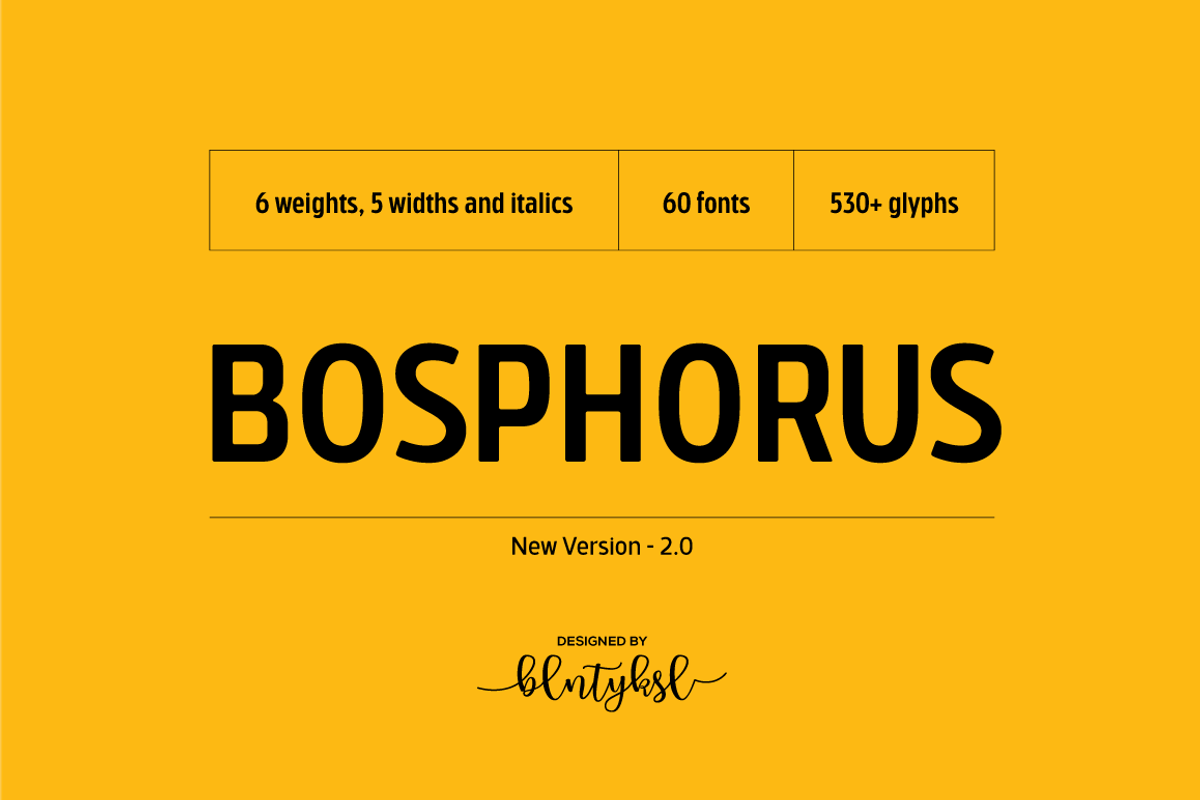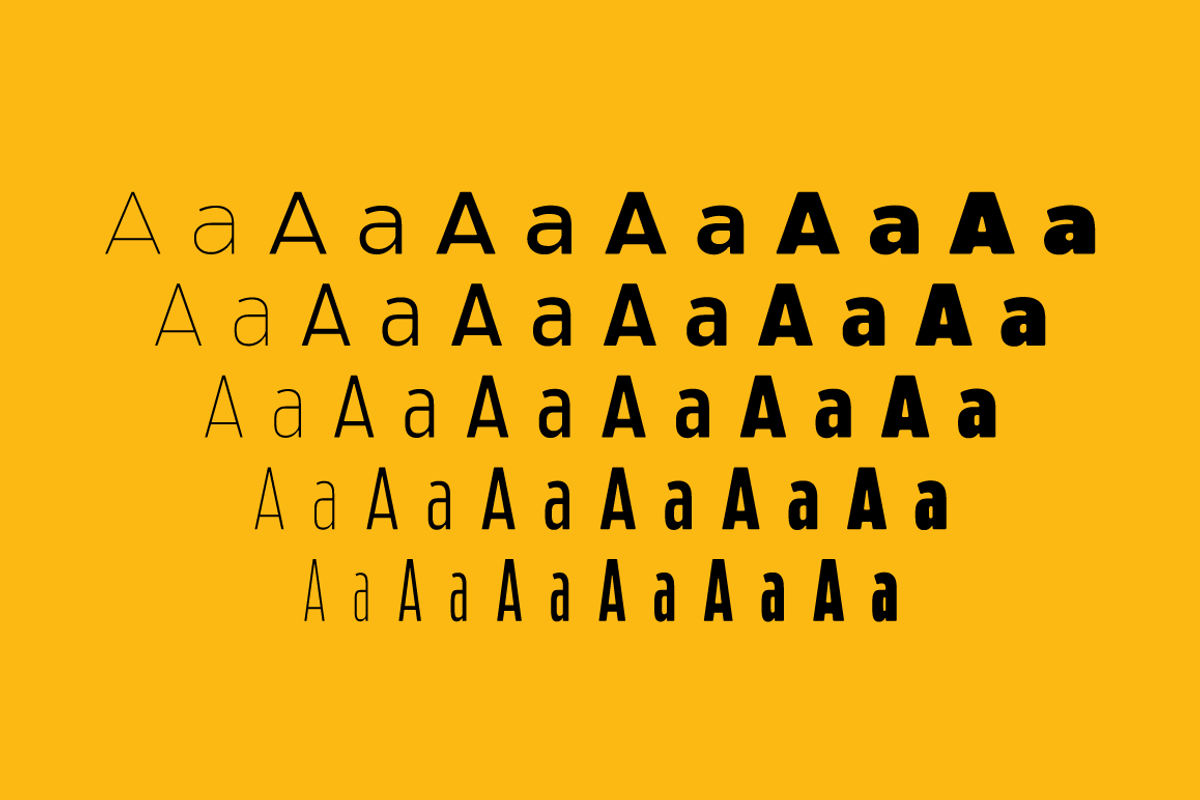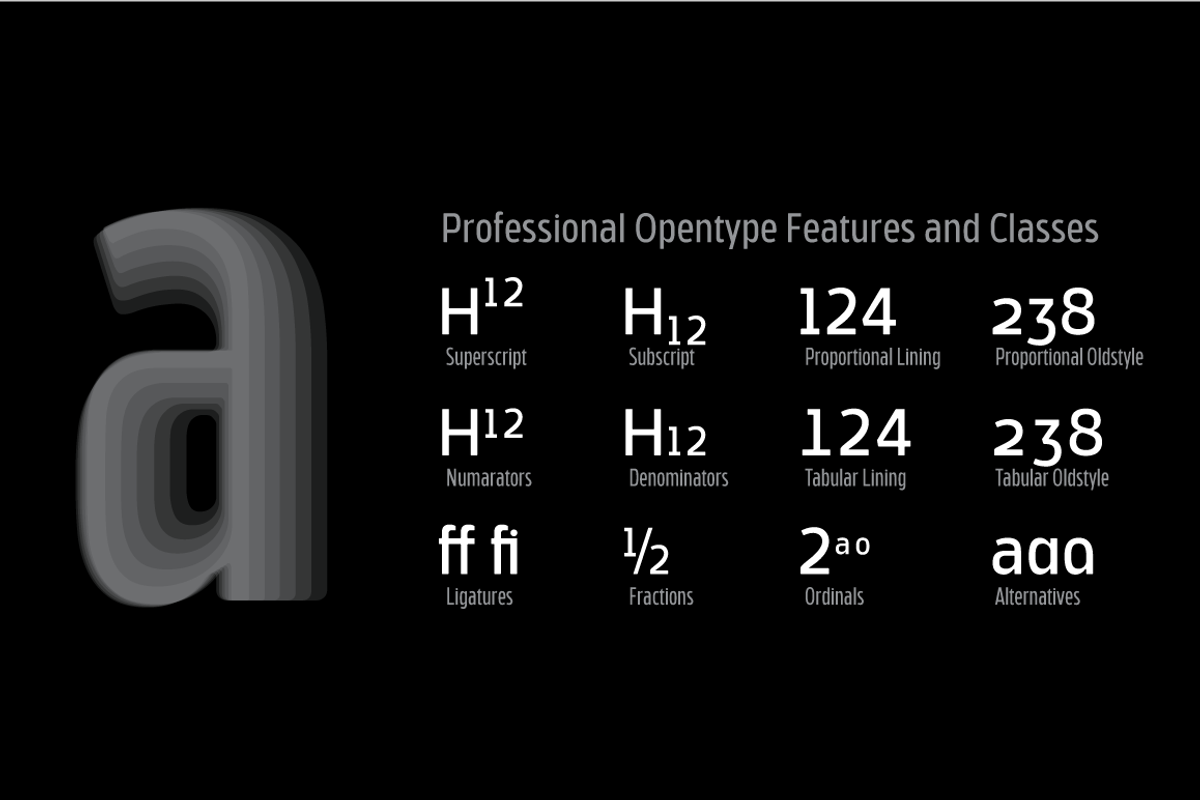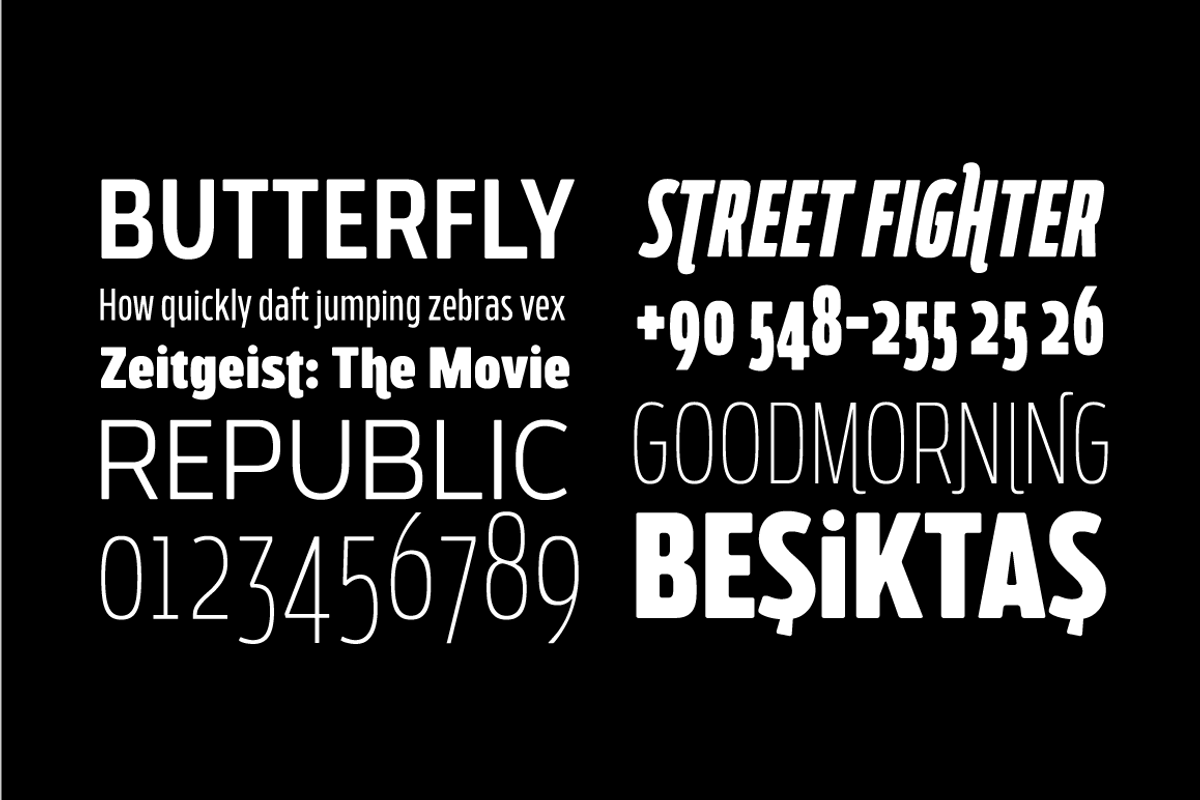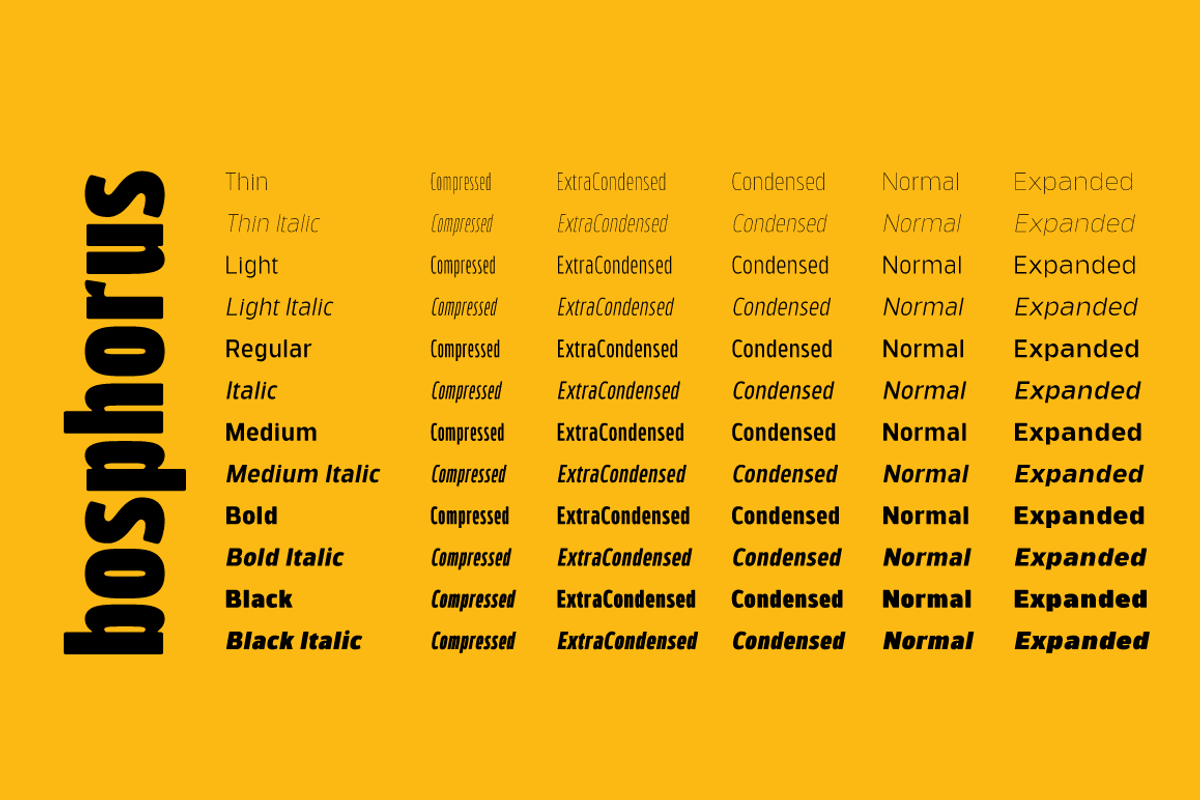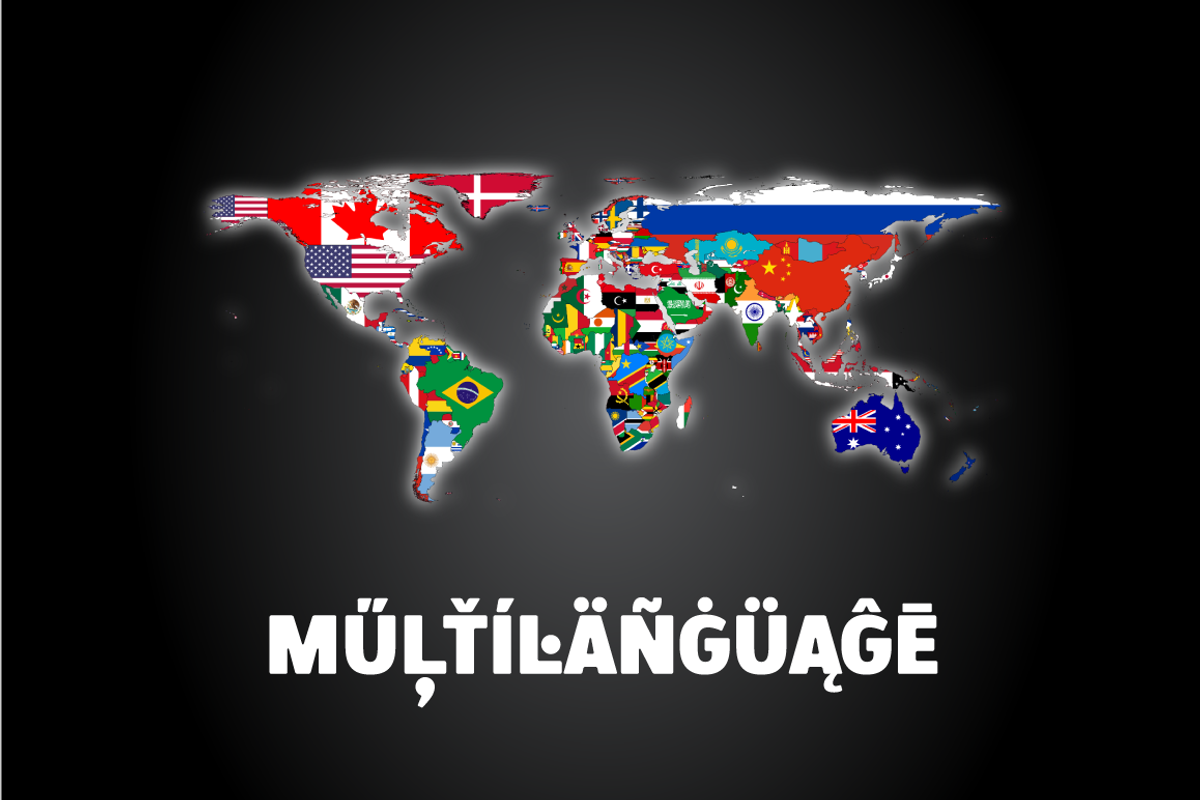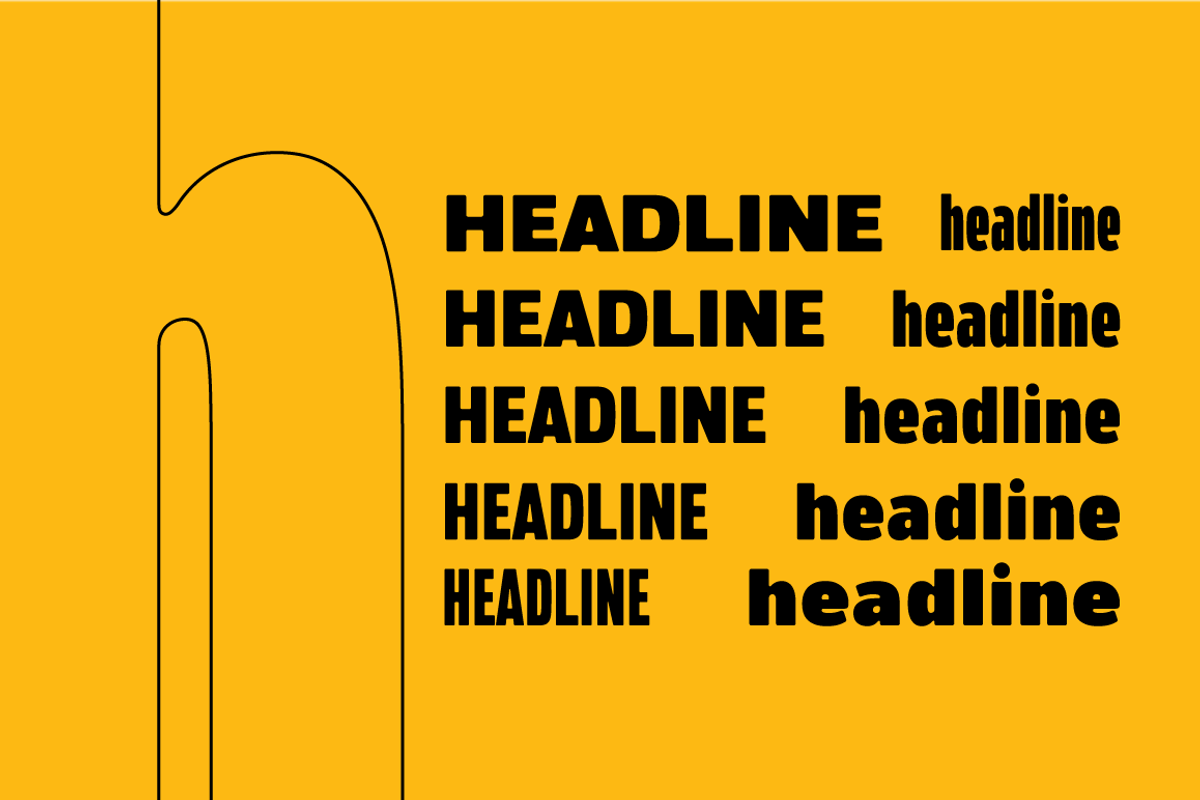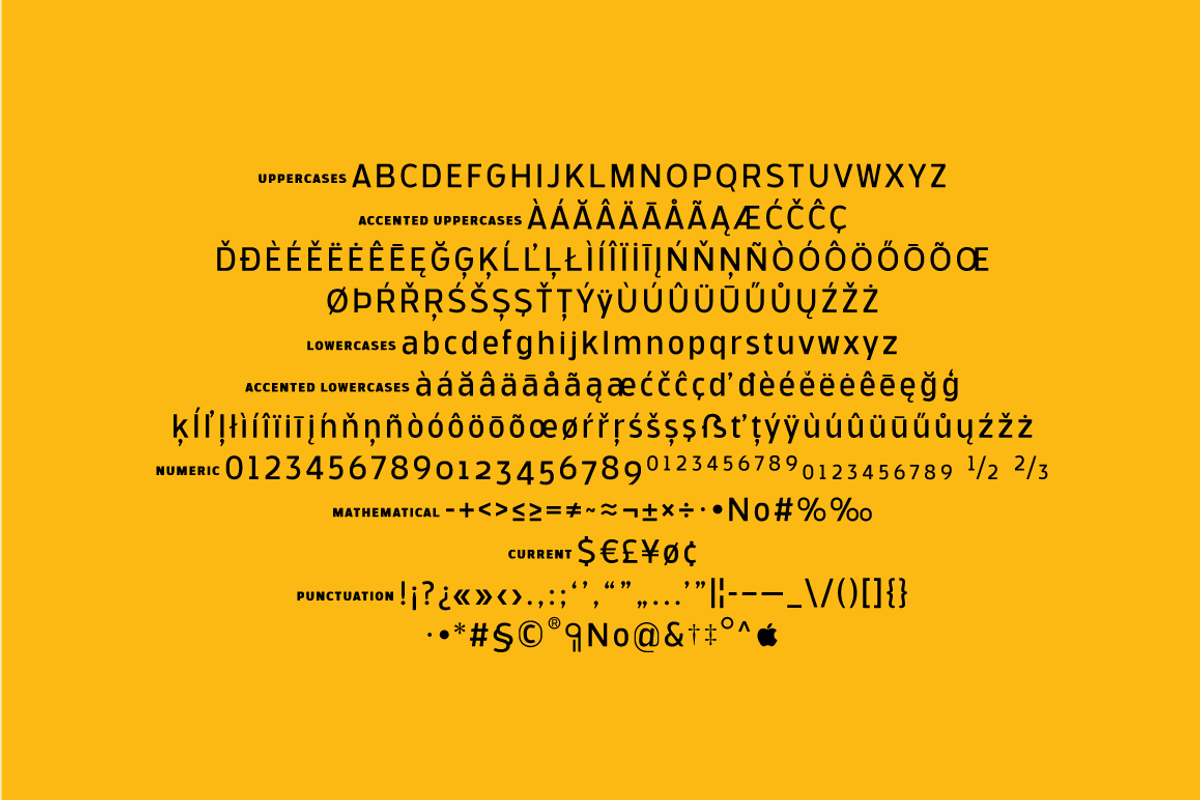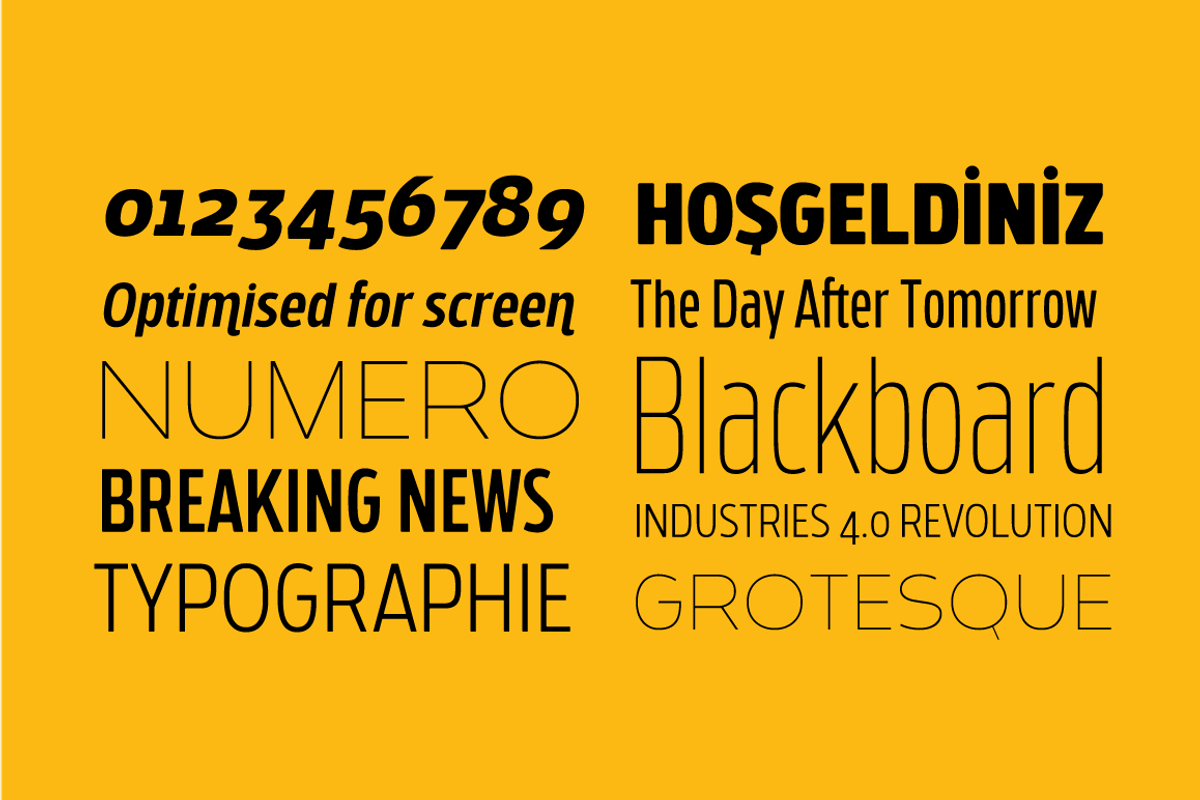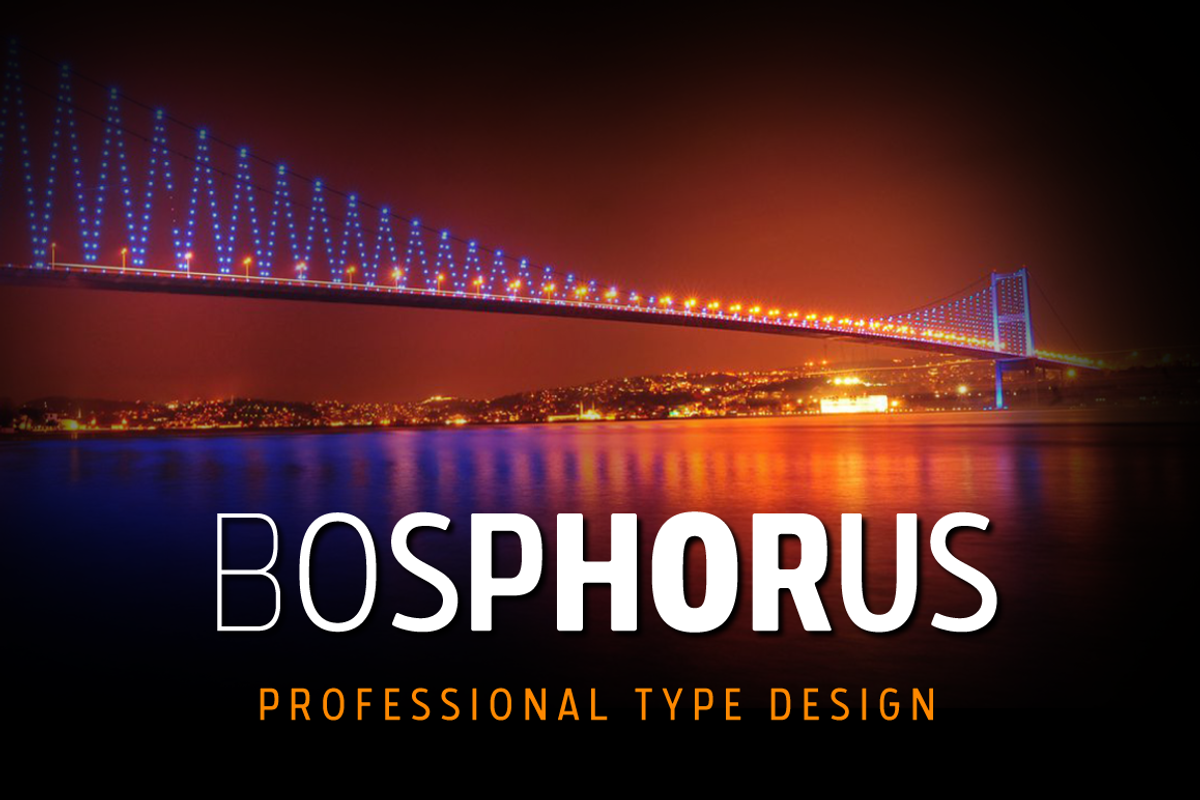
BOSPHORUS
The Bosphorus Turkish: İstanbul Boğazı, is a narrow, natural strait and an internationally significant waterway located in northwestern Turkey. It forms part of the continental boundary between Europe and Asia, and separates Asian Turkey from European Turkey. The world’s narrowest strait used for international navigation, the Bosporus connects the Black Sea with the Sea of Marmara, and, by extension via the Dardanelles, the Aegean and Mediterranean Seas.
There is not much to say for Bosphorus. Font of my dreams. I can't wait to see the fantastic designs that designers will make with this font. I am sure “Bosphorus” will carry the designs of graphic designers to a new stage.
Ideally suited for advertising and packaging, editorial and publishing, logo, branding and creative industries, poster and billboards, small text, wayfinding and signage as well as web and screen design.
Optimized for web, tablet and smartphone applications. Also “Bosphorus” is a perfect screen display font.
TECHNICAL:
“Bosphorus” provides advanced typographical support for Latin-based languages. An extended character set, supporting Central, Western and Eastern European languages, rounds up the family.
The designation “Bosphorus 50 Normal 53 Regular” forms the central point. The first figure of the number describes the stroke thickness: 51 Thin to 56 Black. 5 Width / 6 Weights and italics also “Bosphorus” total 60 types. The family contains a set of 530 characters.
Case-Sensitive Forms, Classes and Features, Fractions, Superior, Inferior, Denominator, Numerator, Old Style Figures just one touch easy In all graphic programs.